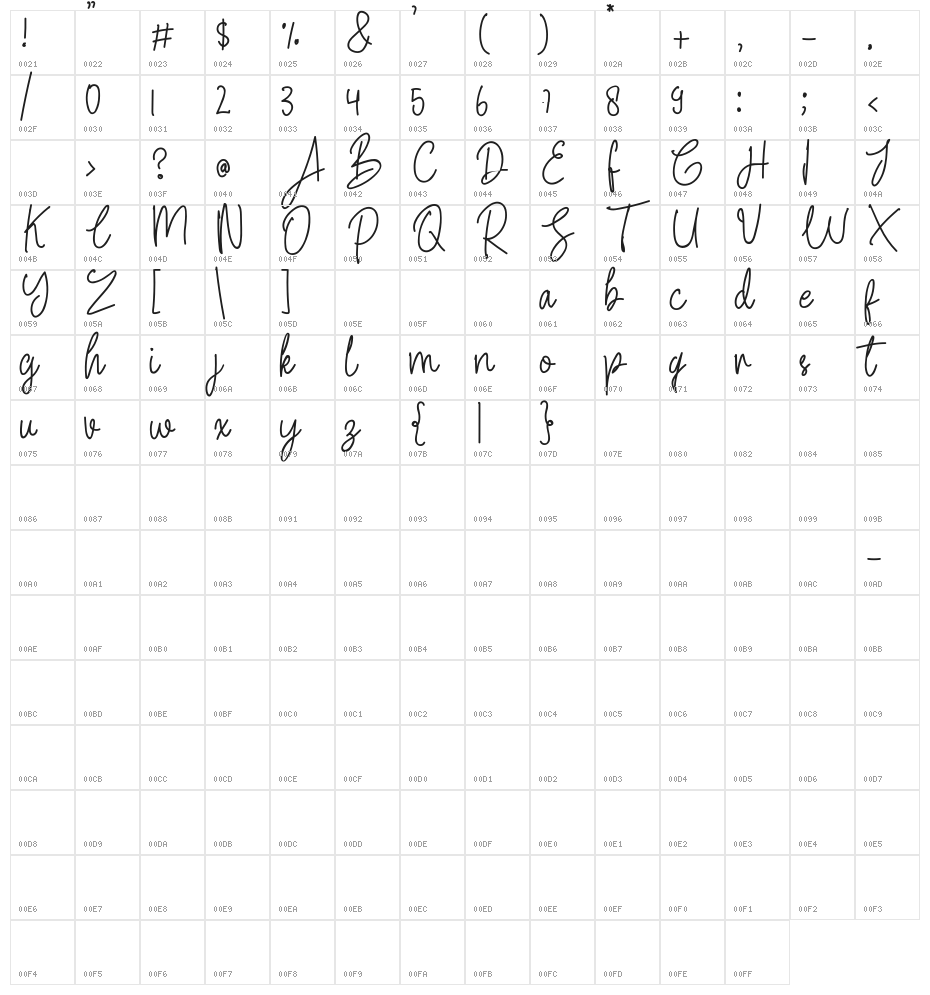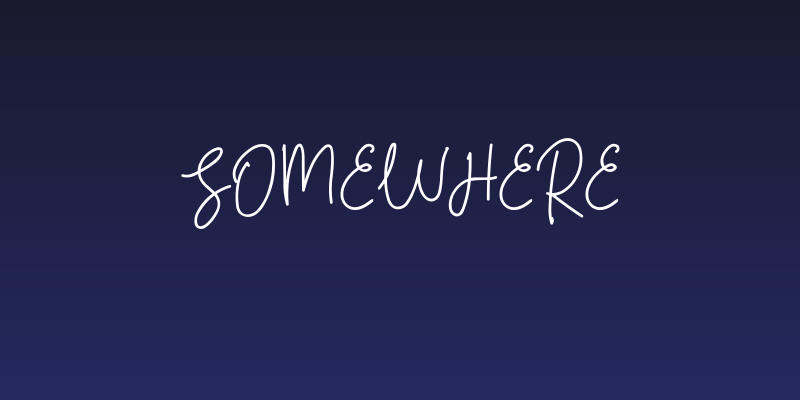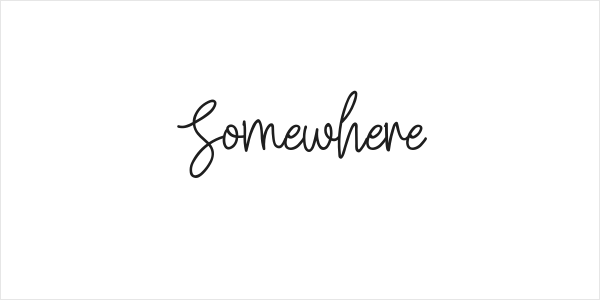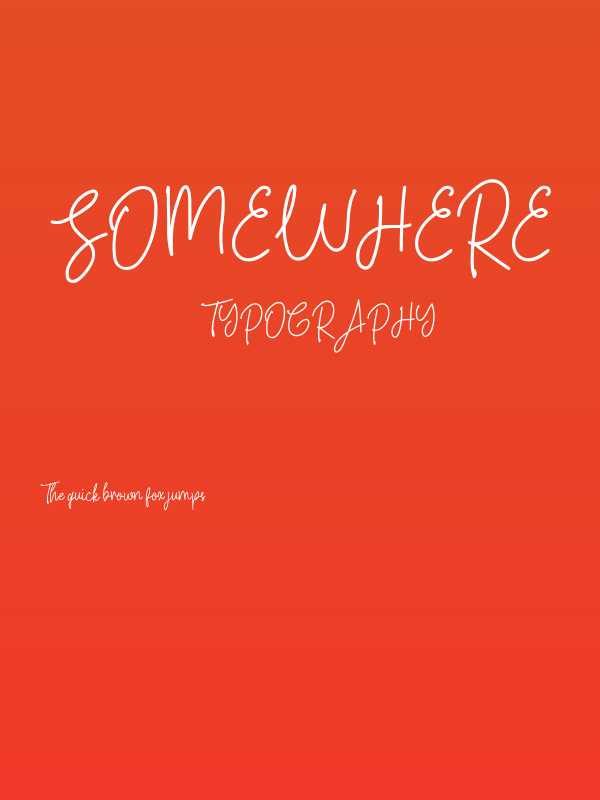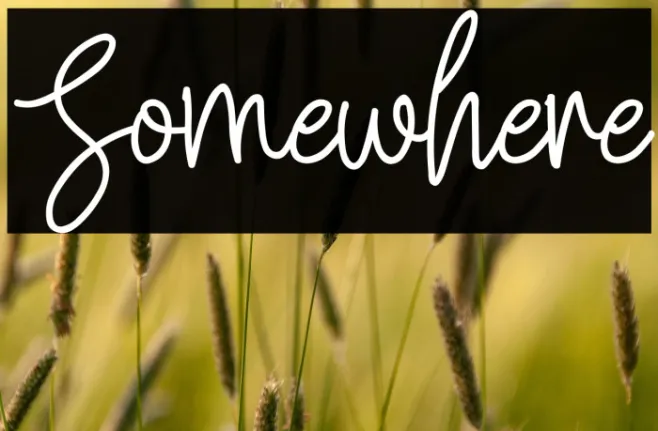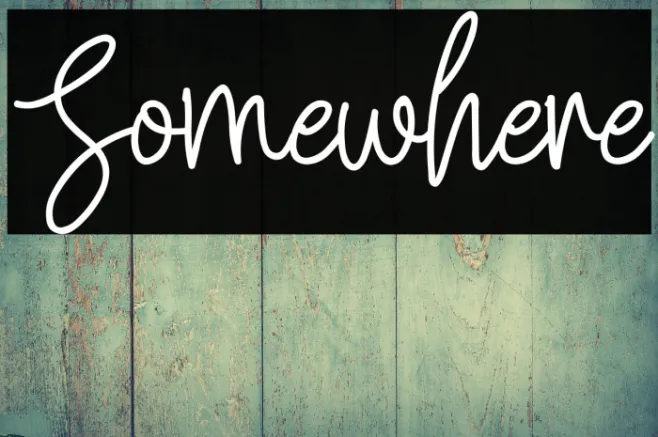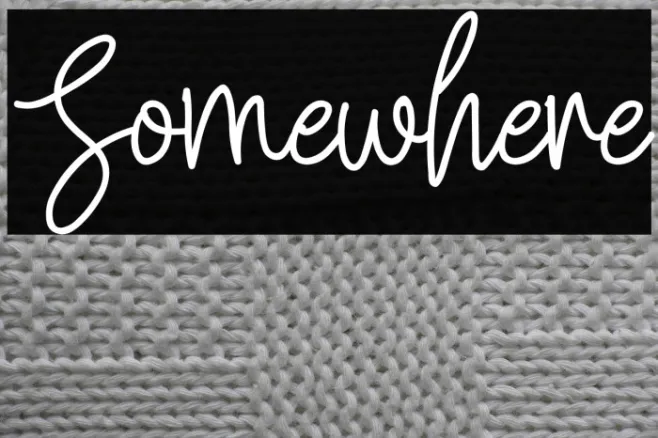
Somewhere Font
Somewhere Description
A playful, handwritten script font with a casual and flowing style, featuring connected letters and a natural, informal appearance.
| Overall Style | Casual, Informal |
| Use Case | Invitations, Personal notes, Creative projects |
| Proposed Projects | Greeting cards, invitations, personal branding. |